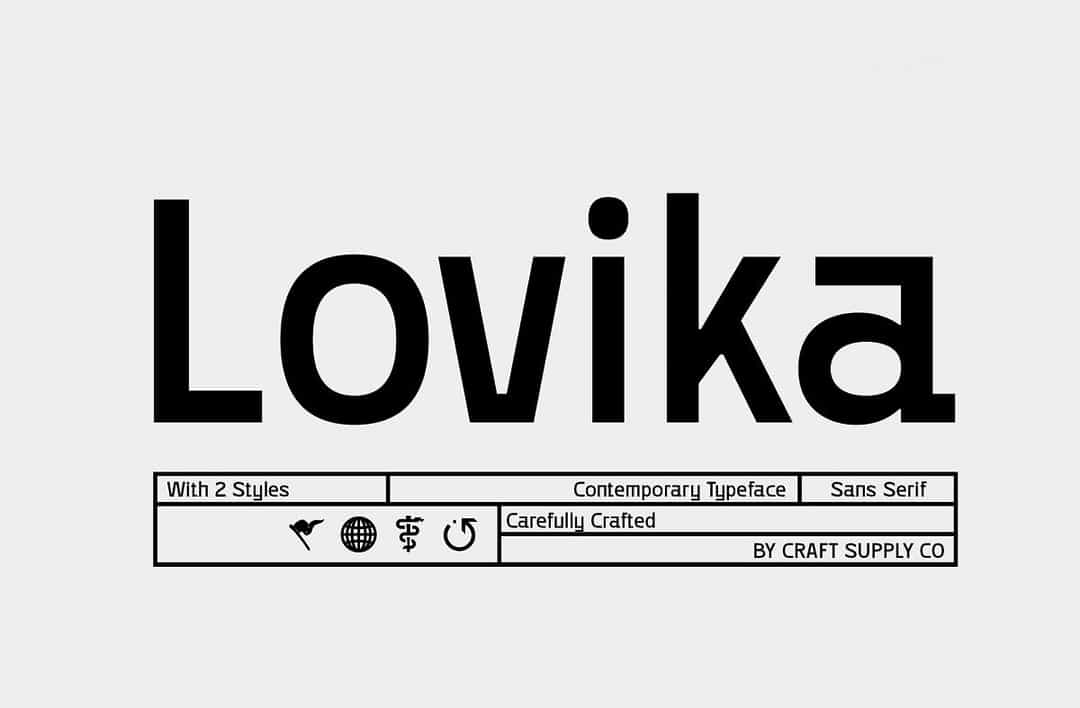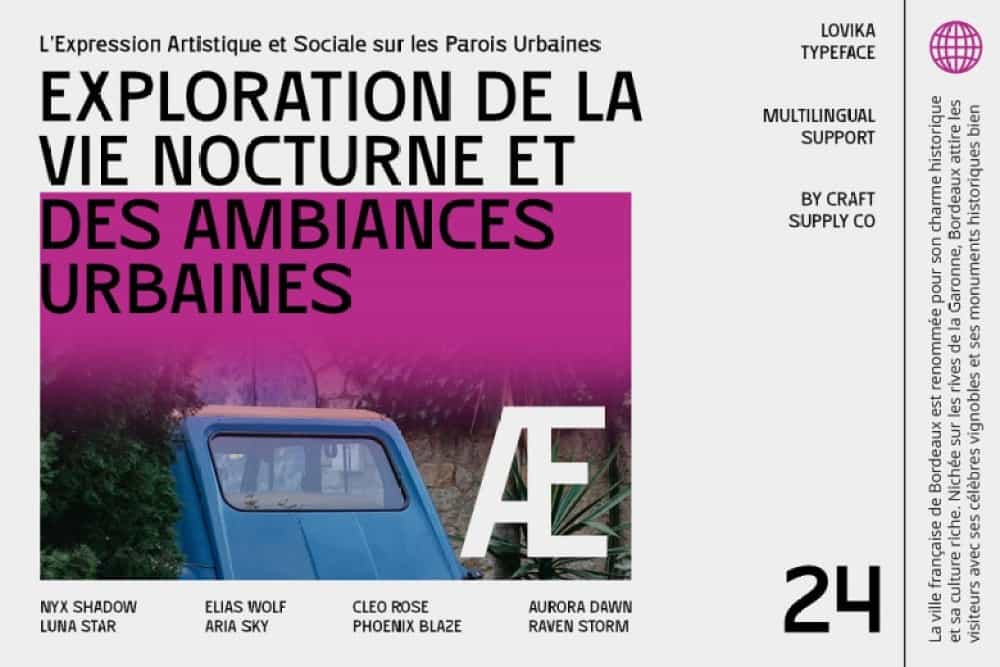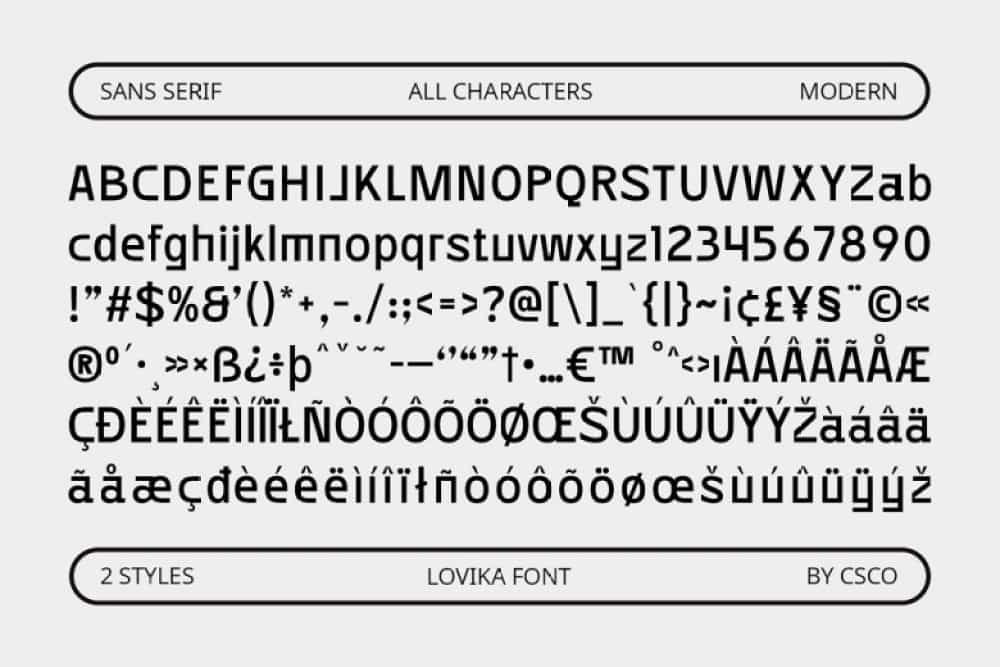
Lovika – is a modern sans serif font perfect for professional designs. It has a modern appearance and simple design, which contributes to its clarity, versatility, and professionalism, thus, it is perfect for business logos, documents, and websites.